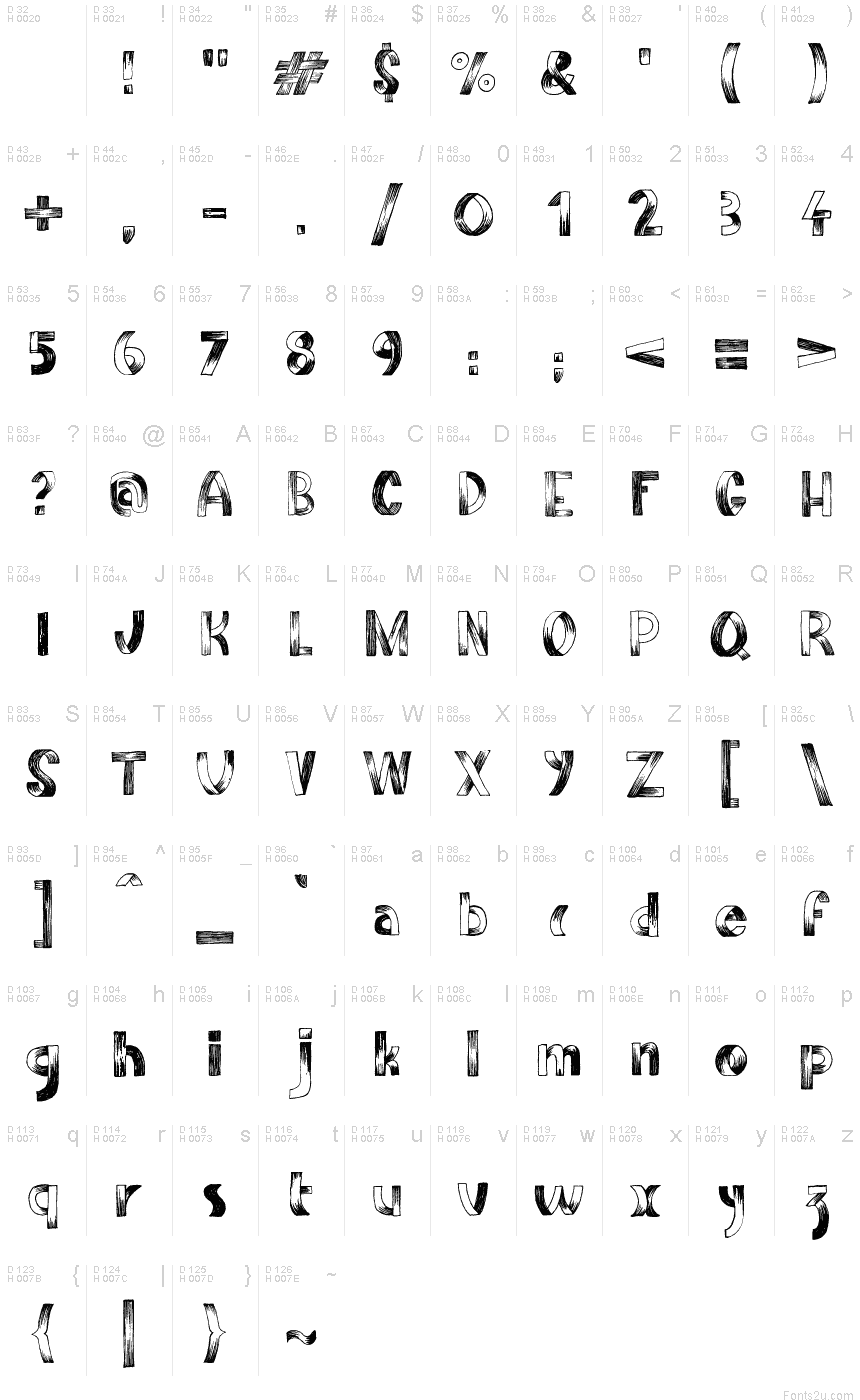
SuperpoZ from Imagex is a free decorative display font with tall, roughly drawn letters and uneven outlines. Dark hatched strokes gather along the sides and curves, making the forms resemble quick pen shading instead of solid fill.
Independent clothing labels and art shops could use its restless sketchbook texture for logos, packaging, and merchandise. It also suits gig posters, where the narrow proportions and scratched interior marks echo hand-inked illustration. The informal drawing style is especially apt for youth-focused brands and alternative music audiences.